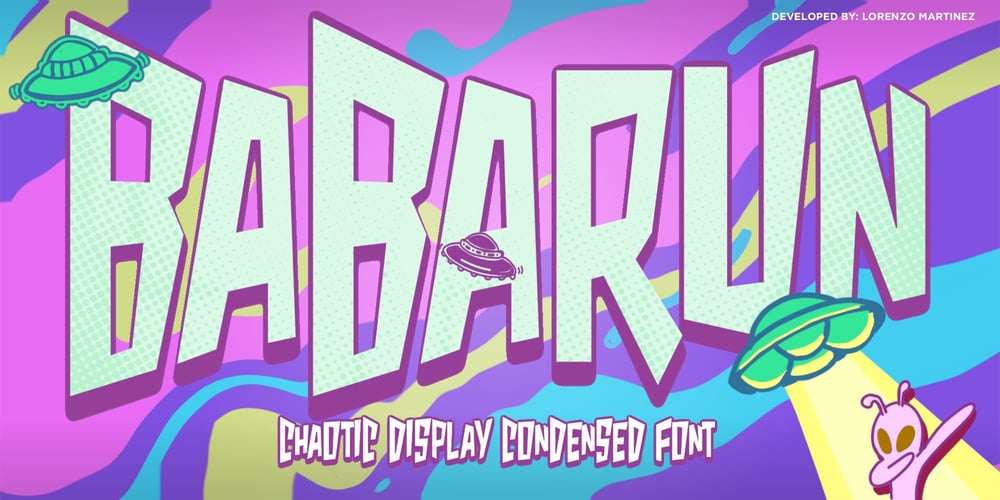
Babarun Font Family was designed by Lorenzo Gabriel Martinez and published by Lurinzu Studios. Babarun contains 1 styles and family package options. “Babarun” is a wildly chaotic display typeface that is heavily inspired by an anime called: Dandadan.Due to its wild and chaotic nature, this font is bestit is best used on big scales or attention-grabbing media designs that best utilize its fun and chaotic nature. (shirt, logo, album etc.) It is also an “ALL CAPS” font. *The full font includes both weights, letters, numbers, multilanguage support, and all essential marks needed.